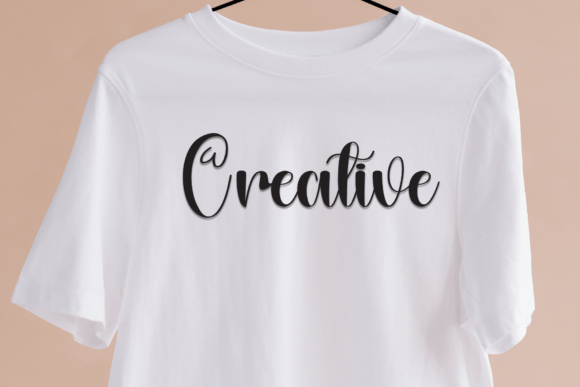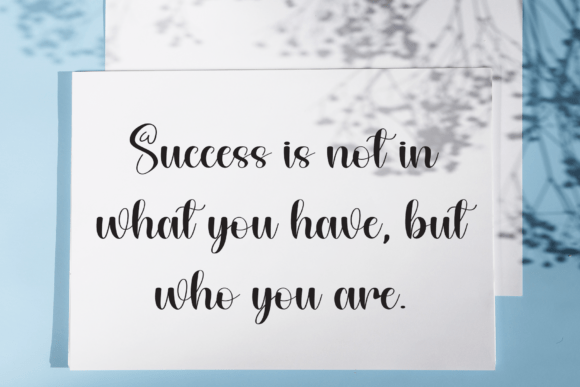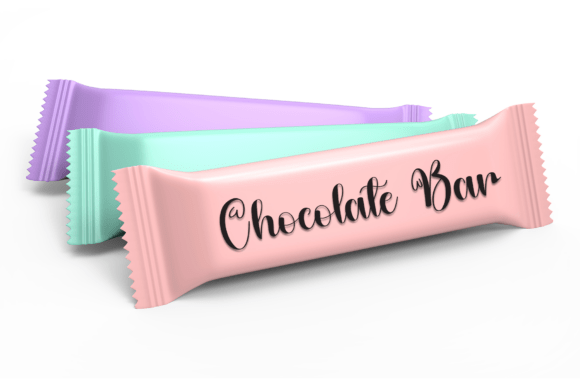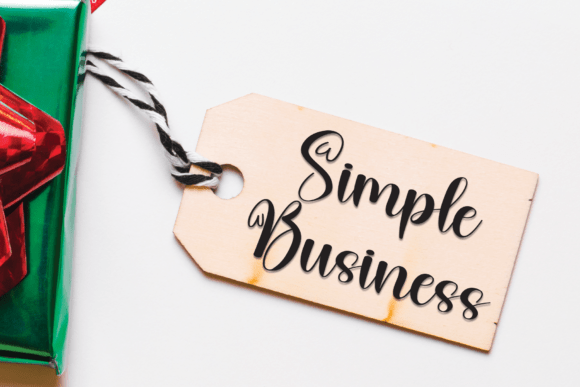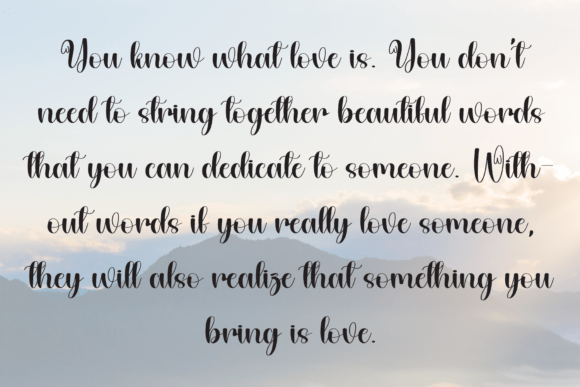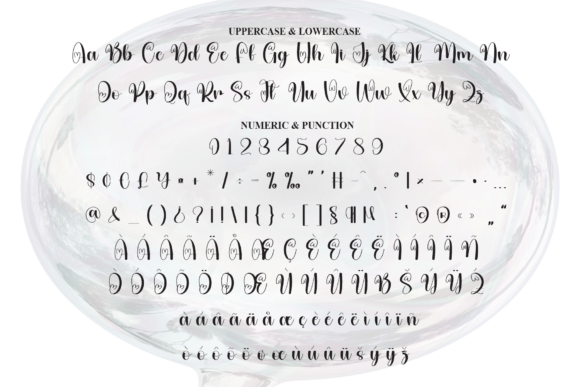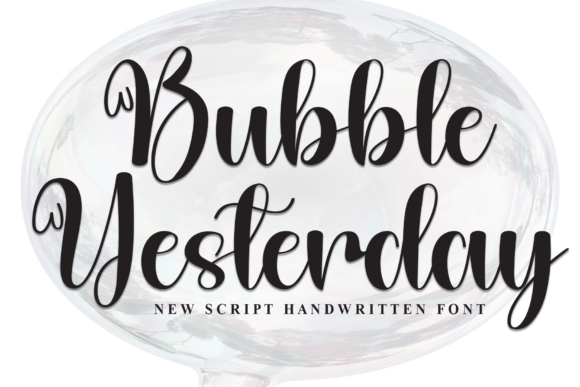
Bubble Yesterday Font: Elevate Your Designs with Elegant Handwritten Charm
In the world of typography, few fonts capture the essence of natural elegance and charm as effortlessly as the Bubble Yesterday Font. This exquisite typeface brings a touch of sophistication and personal warmth to any creative project, making it an ideal choice for designers and crafters looking to infuse their work with a timeless, handwritten aesthetic.
The Essence of Handwritten Elegance
Bubble Yesterday Font stands out with its smooth curves and authentic pen strokes, meticulously designed to mimic real handwriting. This characteristic gives the font a unique, organic feel that resonates with audiences and adds a layer of personal connection to any design. Whether you’re working on wedding invitations, logos, social media posts, or branding materials, this font brings a level of elegance and refinement that’s hard to achieve with more conventional typefaces.
One of the key advantages of the Bubble Yesterday Font is its versatility. Its elegant and flowing script can be used across a wide range of applications, from formal and sophisticated projects like luxury brand logos and wedding stationery, to more casual and personal endeavors such as social media graphics and personal blog headers. The font’s adaptability makes it a valuable addition to any designer’s toolkit, offering the flexibility to create visually appealing and coherent branding across various platforms.
Key Features of Bubble Yesterday Font
- Smooth Curves and Authentic Pen Strokes: The font’s design closely emulates the natural flow and imperfections of handwriting, providing a genuine and heartfelt feel to your designs.
- Elegant and Timeless: With its classic handwritten style, Bubble Yesterday Font brings a sense of timelessness to your projects, ensuring they remain stylish and relevant for years to come.
- High Legibility: Despite its elegant and cursive nature, the font maintains a high level of legibility, making it suitable for both headings and body text.
- Perfect for Branding and Marketing: The unique and personal touch it adds makes it an excellent choice for branding, marketing materials, and advertising, helping to differentiate your brand and leave a lasting impression.
Applications of Bubble Yesterday Font
The applications of Bubble Yesterday Font are vast and varied. Here are a few ideas to get you started:
- Wedding and Event Invitations: Add a touch of romance and sophistication to your wedding invitations, save-the-date cards, and other event materials.
- Branding and Logos: Create a memorable brand identity with a logo that exudes elegance and professionalism.
- Social Media Graphics: Elevate your social media presence with stylish and engaging graphics that reflect your personal or brand’s aesthetic.
- Packaging and Product Design: Stand out on store shelves with beautifully designed packaging that incorporates the Bubble Yesterday Font.
Tips for Using Bubble Yesterday Font
To make the most of Bubble Yesterday Font, consider the following tips:
- Pair with Complementary Fonts: For maximum impact, pair Bubble Yesterday Font with simpler, sans-serif fonts for body text or headings to create visual contrast.
- Adjust Letter Spacing: Fine-tune the letter spacing to ensure optimal readability and aesthetic appeal for your specific design.
- Experiment with Colors: While the font itself is a key element, experimenting with different colors can help match your brand’s palette or the mood you’re aiming to convey.
Bubble Yesterday Font offers designers and crafters a unique opportunity to bring a touch of natural elegance and personal charm to their creative projects. With its smooth curves, authentic pen strokes, and timeless handwritten style, this font is poised to become a staple in any creative toolkit. Whether you’re aiming to create sophisticated branding, romantic wedding invitations, or engaging social media content, Bubble Yesterday Font provides the perfect blend of elegance, legibility, and personal touch to ensure your designs stand out and resonate with your audience.